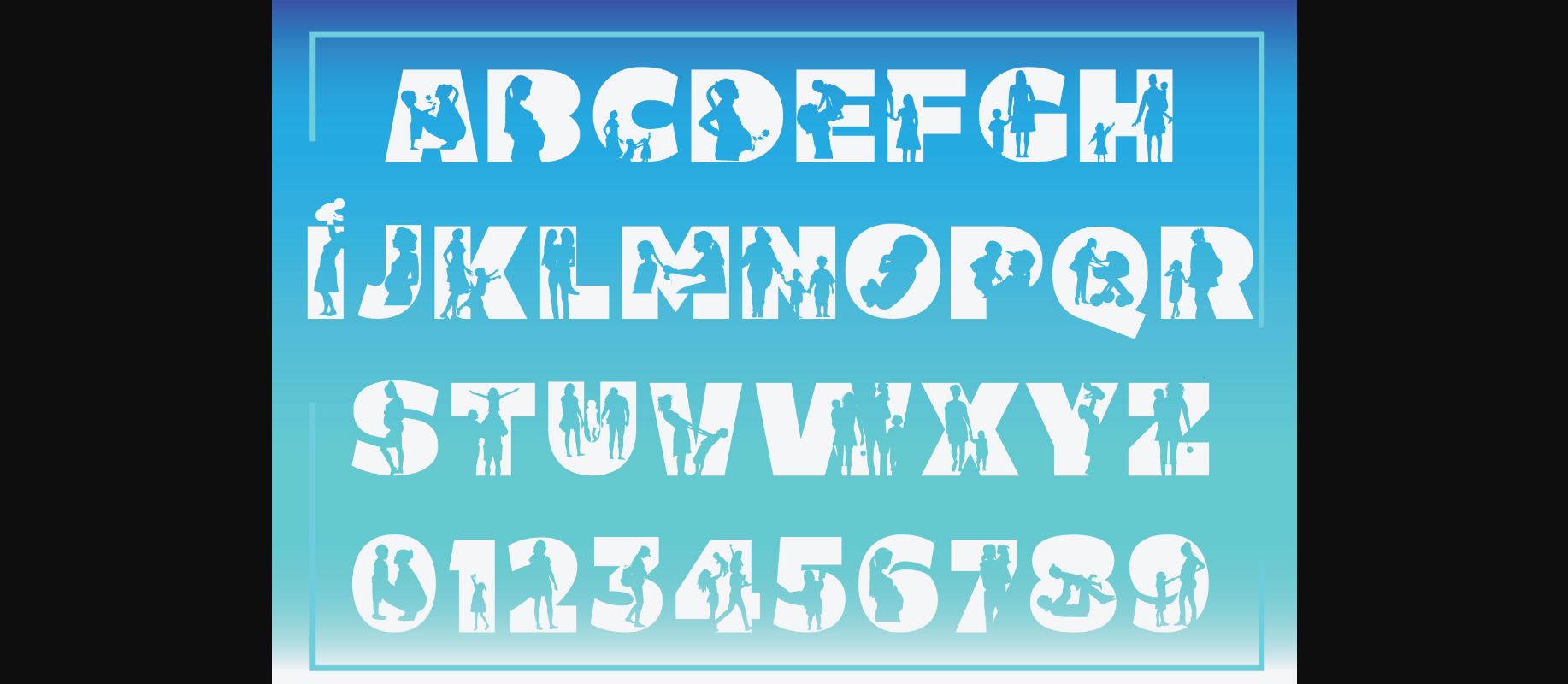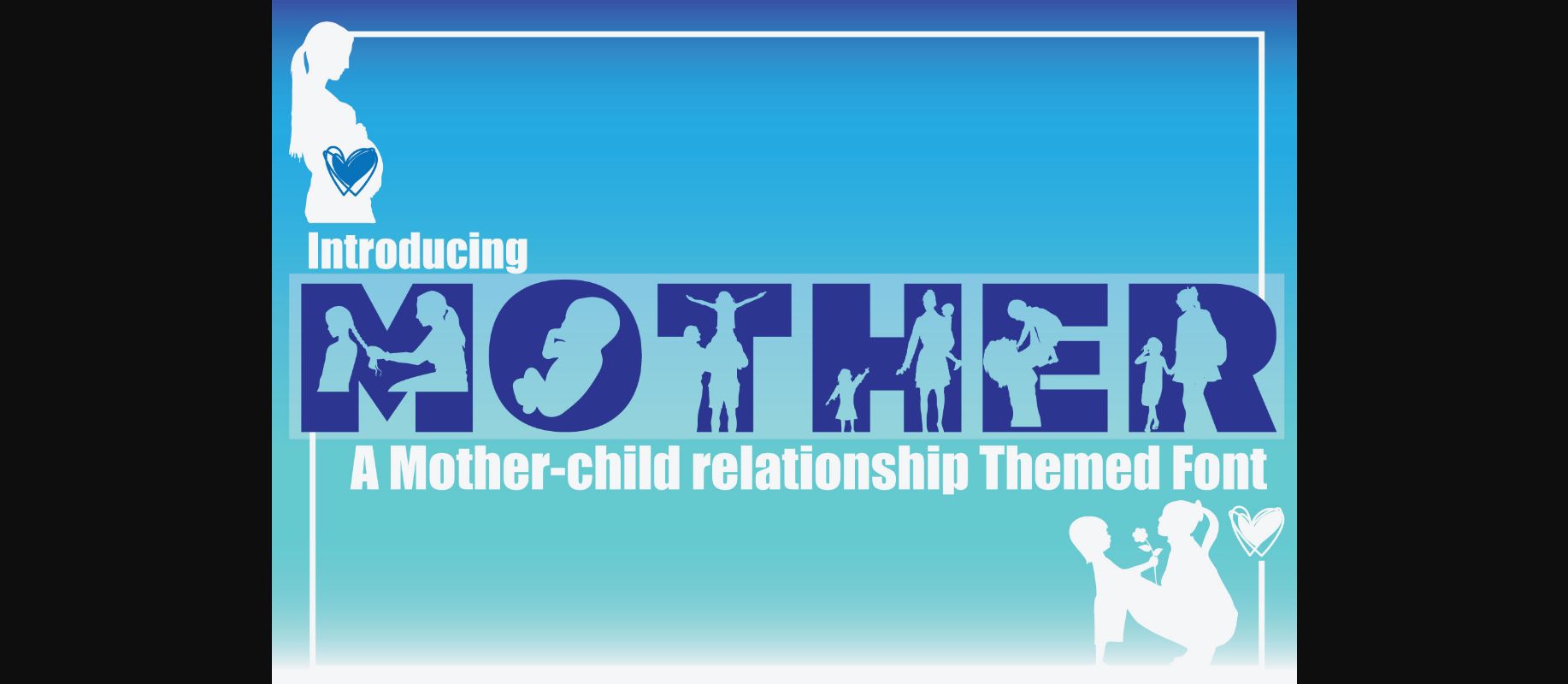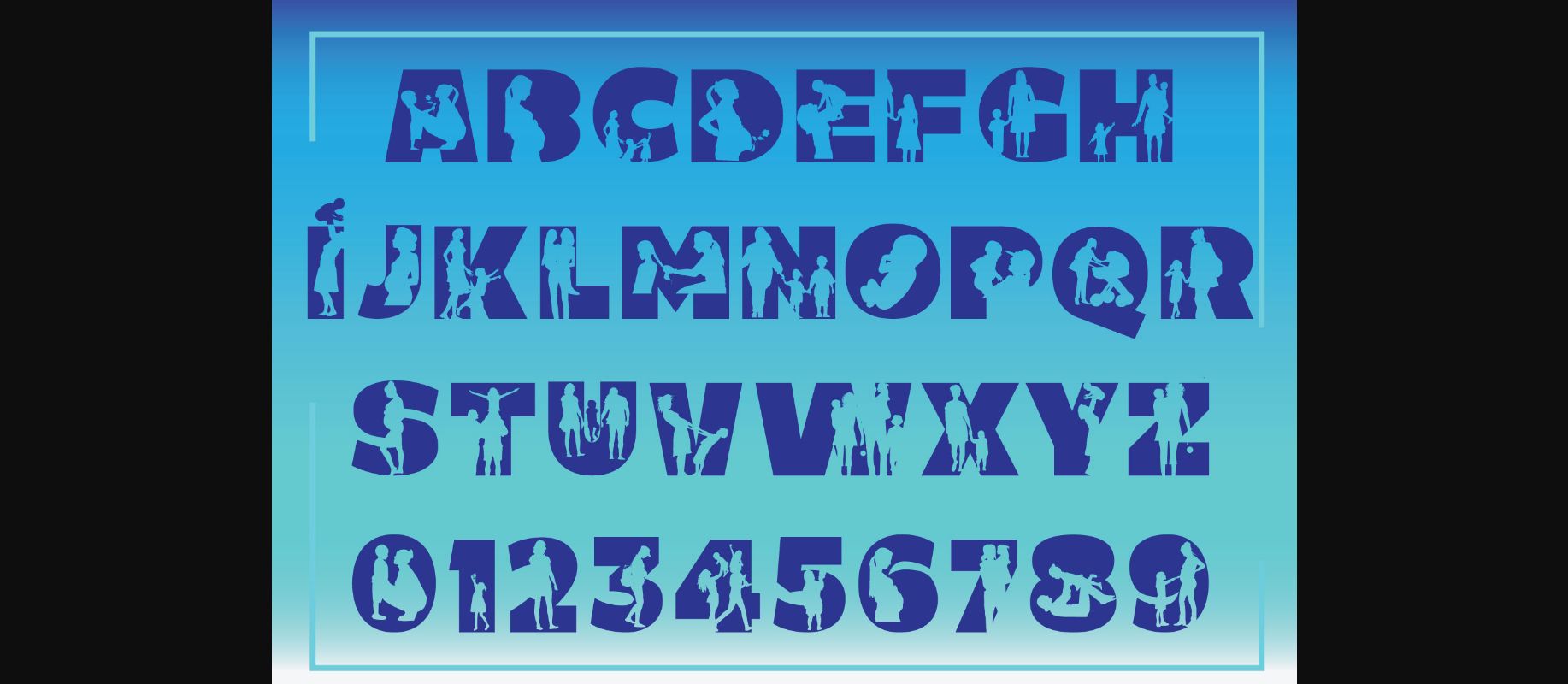
About Mother Font
Create gorgeous and timeless designs with Mother, an interesting and unique decorative font.
Fall in love with its incredibly stylish look and use it for logos, quotes, invitations, business cards, power point presentations, and more!